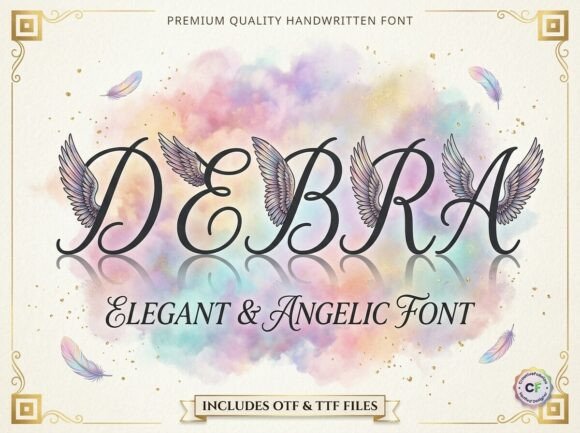
Unleash Your Creativity with Debra Font: A Stunning Decorative Display Font
Have you ever been in the middle of a design project, pouring your heart and soul into it, only to hit a roadblock when it comes to choosing the perfect font? I certainly have! It was during one of those moments, working on a poster design for a local art exhibition, that I stumbled upon the Debra Font. This font is a game-changer, and I’m excited to share my experience with you.
A Personal Design Moment: When Fonts Make All the Difference
I was tasked with creating a poster that would grab attention and reflect the artistic vibe of the exhibition. I tried font after font, but nothing seemed quite right. That was until I discovered Debra Font. Its unique artistic elements and strong visual personality immediately caught my eye. I knew right then and there that it was the perfect fit for my project. The intricate details and creative letterforms added an instant “wow” factor, making my design stand out in a crowded space.
- ✨ Unique artistic elements that add a touch of elegance to any design
- ✅ Strong visual personality that commands attention
- 💥 Perfect for high-impact designs where typography needs to be the focal point
- 🎨 Versatile enough for use in bold headlines, artistic logos, and creative packaging
- 🤔 May not be suitable for body text due to its decorative nature
- ⚠️ Some users may find the font’s intricacy challenging to work with in certain design software
- Experiment with OpenType features, such as glyphs and stylistic alternates, to add more creativity to your design
Debra Font was inspired by the works of renowned artist, Debra, who is known for her bold and expressive style. The font’s designer aimed to capture the essence of her art and translate it into a typographic form. The result is a font that exudes confidence and creativity.
Q: What type of projects is Debra Font best suited for?
A: Debra Font is perfect for high-impact designs, such as poster design, branding and logos, apparel and merch, and social media content.
Q: Can I use Debra Font for body text?
A: While Debra Font is a beautiful font, it may not be the best choice for body text due to its decorative nature. It’s better suited for headlines and titles.
Q: Is Debra Font easy to read?
A: Debra Font is designed to be attention-grabbing, but it may not be the most readable font for small text sizes. Use it for larger text sizes or headlines for maximum impact.